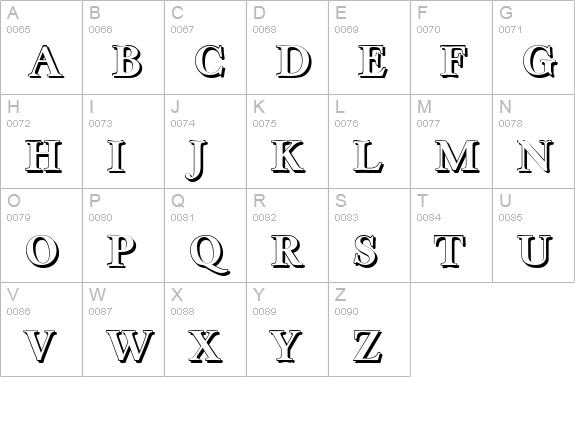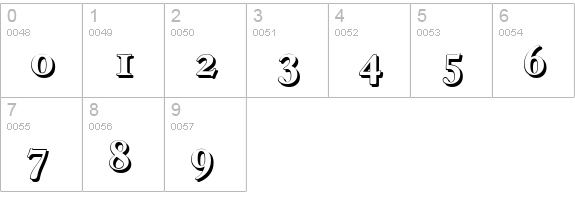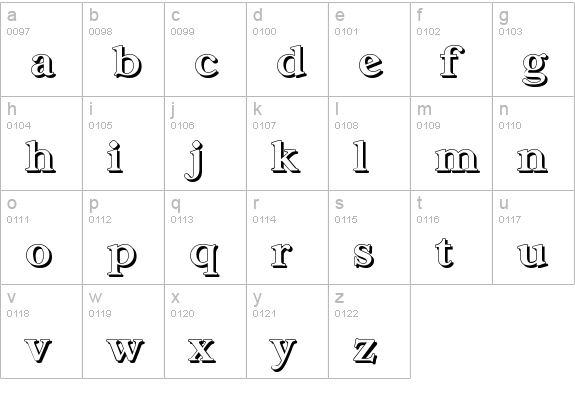
CasablancaShadow-Bold Font Details
CasablancaShadow-Bold is a strong, high-contrast variant in the CasablancaShadow typeface family \xE2\x80\x94 well suited to headlines, attention-grabbing titles, and strong calls-to-action.
CasablancaShadow-Bold is a stunning and bold display font that exudes elegance and sophistication. With its unique shadow effect, this font is perfect for making a statement in your designs. Whether you're creating posters, logos, or branding materials, CasablancaShadow-Bold will surely stand out. The best part? CasablancaShadow-Bold is completely free to download at FontsMarket.com. This means you can elevate your projects with this eye-catching font without breaking the bank. So why wait? Enhance your designs with CasablancaShadow-Bold today and make a lasting impression.